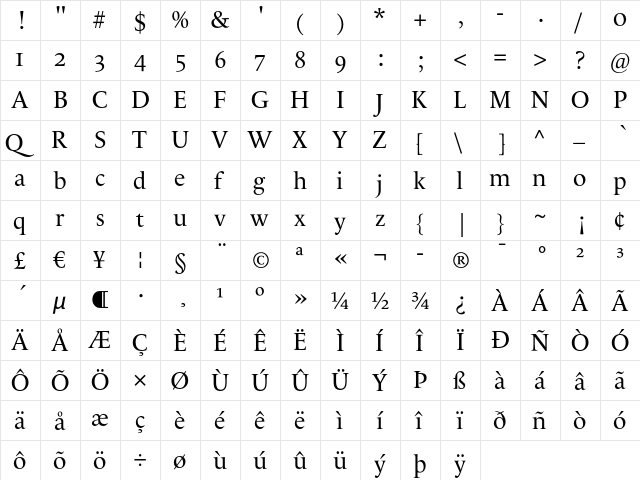
LeMonde Livre Classic Normal
Design Context for LeMonde Livre Classic Typeface
LeMonde Livre Classic wears its vintage influences proudly, with letterforms that recall mid-century signage, classic packaging, and nostalgia-driven design.
Perfect for vintage-inspired branding, retro packaging, nostalgia campaigns, and period-accurate editorial design.
Font Pairing: Combine LeMonde Livre Classic with a simple slab or neutral sans — period-accurate companions reinforce the vintage feel without competing for attention.
Pro Tip: Use LeMonde Livre Classic for headlines and pull quotes rather than body copy — its personality is best appreciated in short, focused bursts.